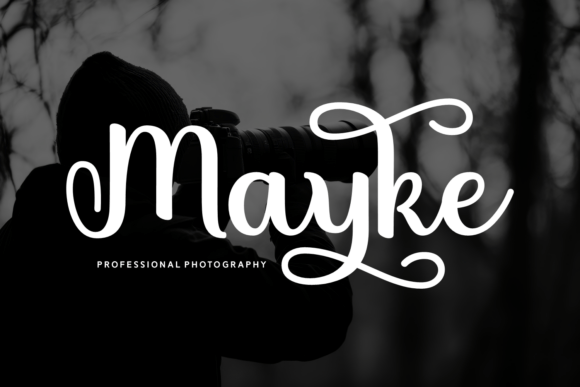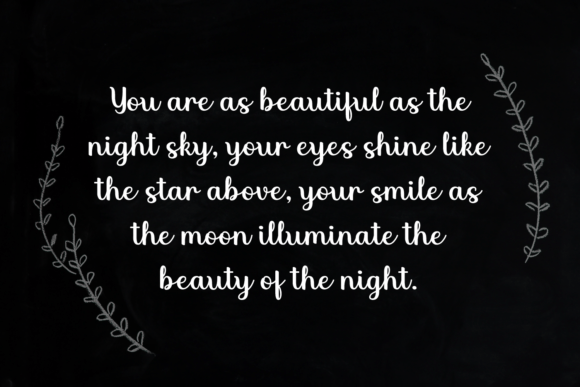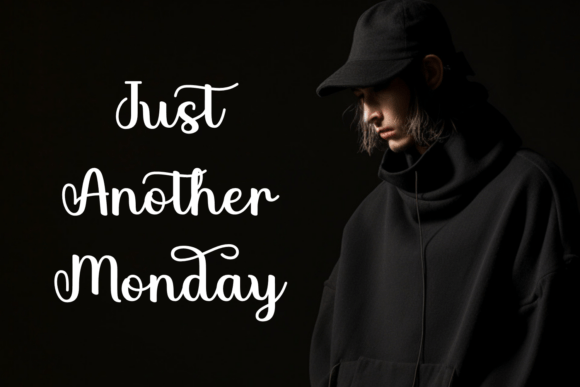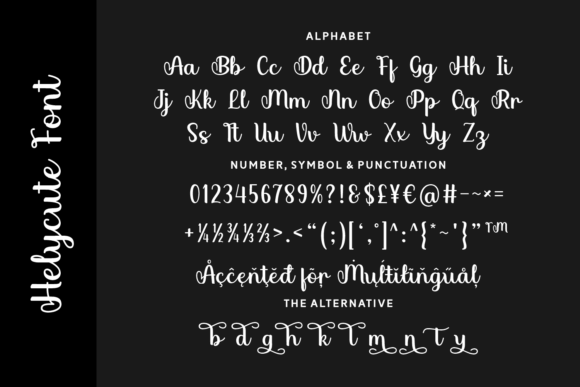
The Perfect Script: Unveiling the Beauty of Helycute Font
Have you ever sat at your desk, staring blankly at a blank page, desperately searching for the perfect font to capture the essence of your design? The frustration is real, but the excitement of finally finding that elusive font is what makes it all worth it. And, for designers, that moment is about to get a whole lot brighter with the introduction of the stunning Helycute Font.
This elegant script font boasts confident strokes and beautiful swashes, effortlessly blending modern style with vintage charm. As a result, it’s become a go-to choice for logos, business cards, headers, and invitations. But what makes Helycute Font truly valuable to designers is its ability to add character and sophistication to any design, setting it apart from the rest.
Helycute Font Key Features
- Unique Characteristics: The font features a unique, playful, and modern design, making it perfect for creative projects and branding.
- Font Weight: The font has 3 different weights: Regular, Bold, and Italic, allowing designers to choose the perfect weight for their project.
Helycute Font Review
Overall, I think the Helycute font is a lovely addition to any design project. ✨ Its playful and whimsical nature makes it perfect for creating eye-catching headings and titles. The font’s curves and rounded edges give it a friendly feel that’s sure to engage your audience.
I particularly love the variety of weights and styles available, which allows for a lot of flexibility in terms of design. You can use it for everything from bold, statement-making headings to softer, more subtle text blocks.
Here are some of the things that work well in the Helycute font:
- ✨ Playful and whimsical feel
- ✨ Variety of weights and styles
- ✨ Suitable for headings, titles, and text blocks
- ⚠️ May not be the best choice for formal or professional designs
- ⚠️ Can be overwhelming if used too extensively
Overall, I think the Helycute font is a great addition to any design project, as long as you use it thoughtfully and in moderation. With its playful feel and variety of styles, it’s perfect for creating engaging and eye-catching designs.
Helycute Font: A Practical Application Guide
To get the most out of the Helycute font, use it in combination with bold or italic styles to create visual interest. Experiment with different font sizes and colors to create a cohesive design. Avoid using the font in small sizes or with low contrast backgrounds.
The Helycute font is ideal for:
• Branding and logo design
• Advertising and marketing materials
• Editorial and publishing content
• Web design and development
Q: Does the Helycute Font include any ligatures or alternates?
Yes, the Helycute Font includes a range of ligatures and alternates to enhance readability and aesthetics. You can access these features using OpenType layout and glyph substitution.